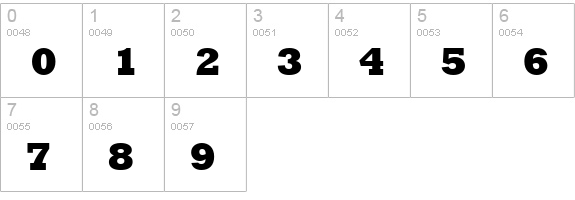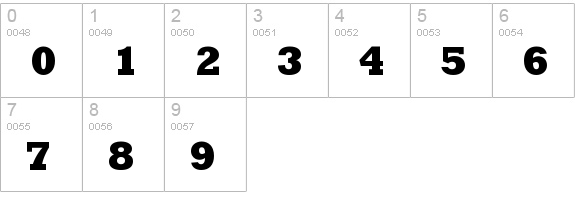
Astute Black SSi Extra Bold is a maximum-weight, dramatic variant in the Astute typeface family \xE2\x80\x94 well suited to maximum-impact headlines, posters, and packaging.
Astute Black SSi Extra Bold font is a versatile and eye-catching typeface designed for bold statements and impactful designs. With its sharp and precise lines, this font exudes a sense of sophistication and modernity. The thick strokes and clean edges make it perfect for headlines, logos, and branding projects that require a strong visual presence. What sets Astute Black SSi Extra Bold font apart is its ability to command attention while maintaining a sleek and professional look. Whether used in print or digital media, this font is sure to make a statement and leave a lasting impression on viewers. Best of all, Astute Black SSi Extra Bold font is available for free download at FontsMarket.com. This means you can enjoy the benefits of this premium font without any cost, making it a valuable resource for designers, creatives, and anyone looking to elevate their projects with a touch of sophistication and style. Don't miss out on the opportunity to enhance your designs with the bold elegance of Astute Black SSi Extra Bold font – download it for free today!